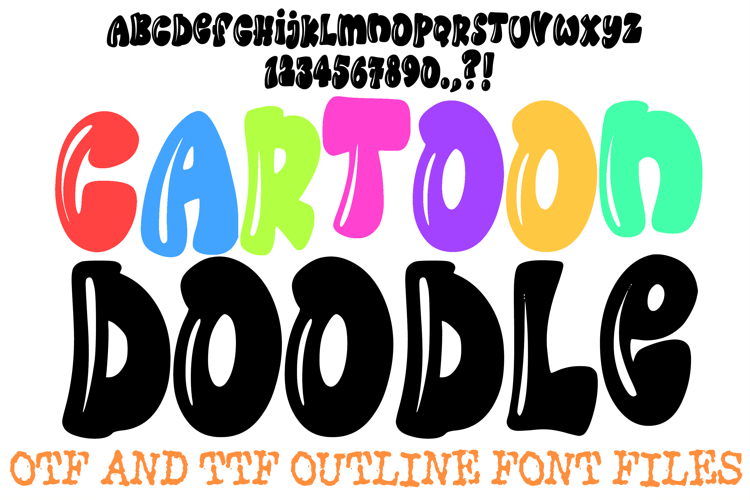
Cartoon Doodle Font Hand Drawn Comic Lettering ABC OTF Type
The Cartoon Doodle Font is a high-energy, whimsical display typeface that captures the spirit of classic animation and sketchbook art. Featuring thick, bouncy silhouettes and hand-drawn "shimmer" highlights, this font gives every letter a 3D, liquid-like volume that looks like it was just painted onto the screen. It is the ultimate choice for vibrant children’s branding, playful YouTube thumbnails, custom stickers, and high-impact social media headers.
Each character is meticulously crafted with a "puffy" weight and organic, flowing lines that provide an approachable and friendly personality. Whether you are a designer creating a fun new logo or a crafter working on bold vinyl decals, the Cartoon Doodle Font delivers a professional, artisan-etched aesthetic that demands attention and sparks joy.
Why Your Designs Will Stand Out
Glossy Shimmer Details: Hand-drawn white highlights provide a realistic "wet ink" or balloon-like shine, adding instant depth to your text.
Bold Bouncy Silhouettes: The exaggerated, rounded proportions ensure your headlines remain dominant and highly readable, even from a distance.